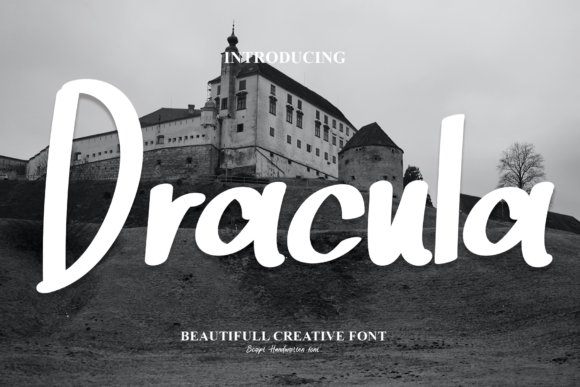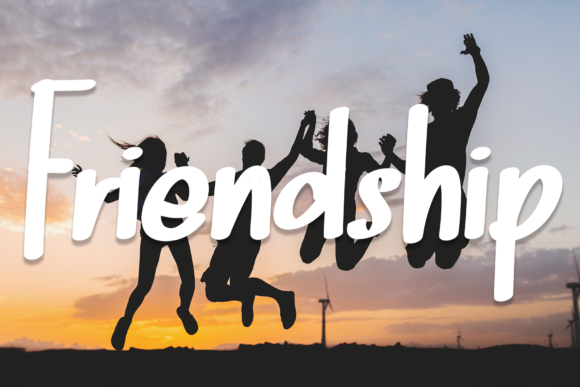
About Dracula Font
Dracula is a captivating and artistic handwritten font that adds a touch of intrigue and sophistication to your design projects. Its paint brushed texture gives it a distinctive and dynamic appearance, making it a versatile choice for a wide range of applications.
Imagine using Dracula for your wedding invitations. Its unique and adaptable style can add a sense of elegance and creativity to the invitations, setting the tone for a memorable and enchanting event. Whether it’s a formal wedding or a more unconventional celebration, Dracula’s artistic flair can enhance the overall aesthetic and create a lasting impression on your guests.
For business cards, Dracula can make a bold statement and leave a lasting impression. Its distinct paint brushed strokes convey a sense of creativity and innovation, making your business cards stand out from the crowd. Whether you’re a creative professional, an entrepreneur, or a business owner, Dracula can help you create a strong and memorable brand identity.
Greeting cards and social media posts adorned with Dracula can exude a sense of artistry and individuality. The font’s unique texture and adaptable style can transform ordinary messages into visually appealing and engaging content. Whether you’re sending heartfelt greetings or sharing updates with your followers, Dracula can add a touch of elegance and creativity to your communication.
When used in wall art and home decor, Dracula can bring a touch of sophistication and creativity to your living space. Its artistic and paint brushed appearance can serve as a conversation starter and create a visually captivating focal point in any room. Whether you’re creating custom prints, wall decals, or framed art, Dracula’s adaptable style can complement a variety of interior design themes.
Incorporating Dracula into your design projects allows you to harness its unique and adaptable qualities to create stunning and memorable visuals. Its paint brushed texture and elegant appeal make it a font of choice for adding a touch of creativity and sophistication to various applications, from invitations and business materials to social media graphics and home decor.